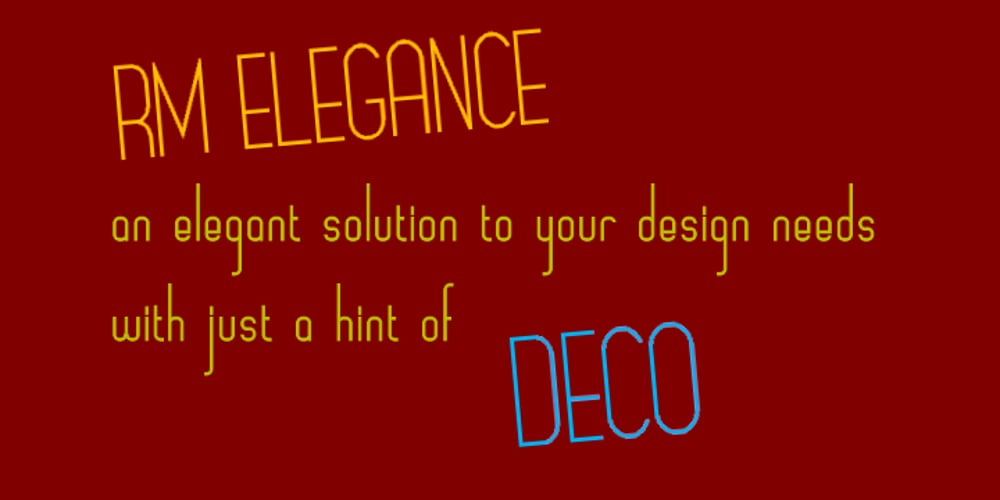
RM Elegance Font Family was designed by Ray Meadows and published by Ray Meadows. RM Elegance contains 2 styles and family package options. With an obvious nod to Art Deco, this font offers a stylish design with distinctively elongated ascenders and descenders. Includes: Western European, Central European, Baltic & Turkish sets. Due to the modular nature of this design there may be a slight lack of smoothness to the curves at very large point sizes (around 100 pt and above).